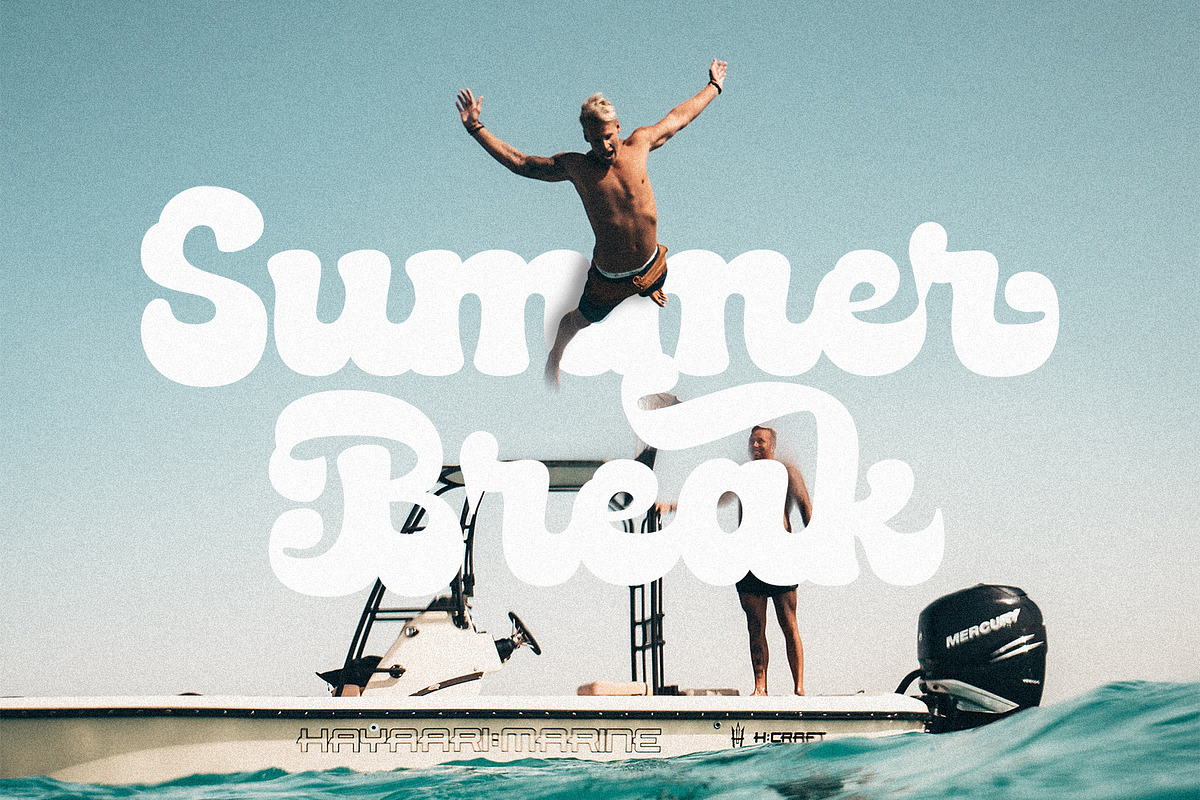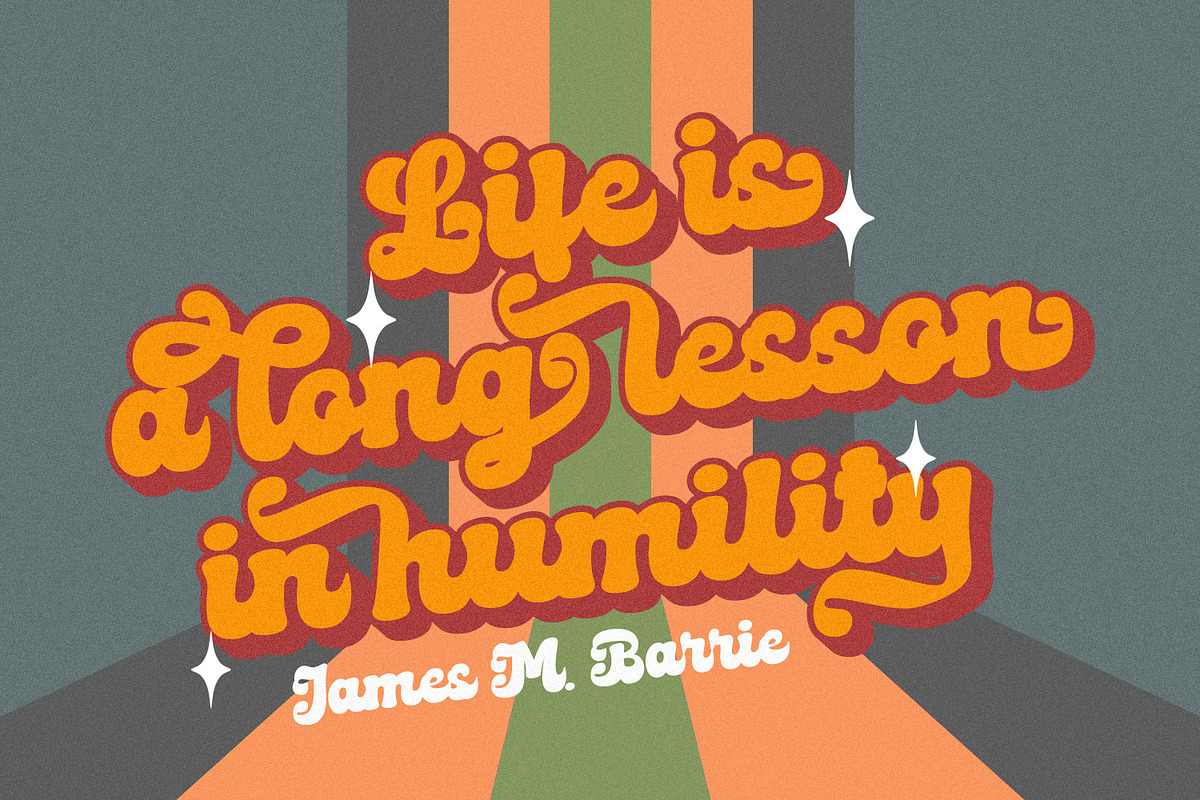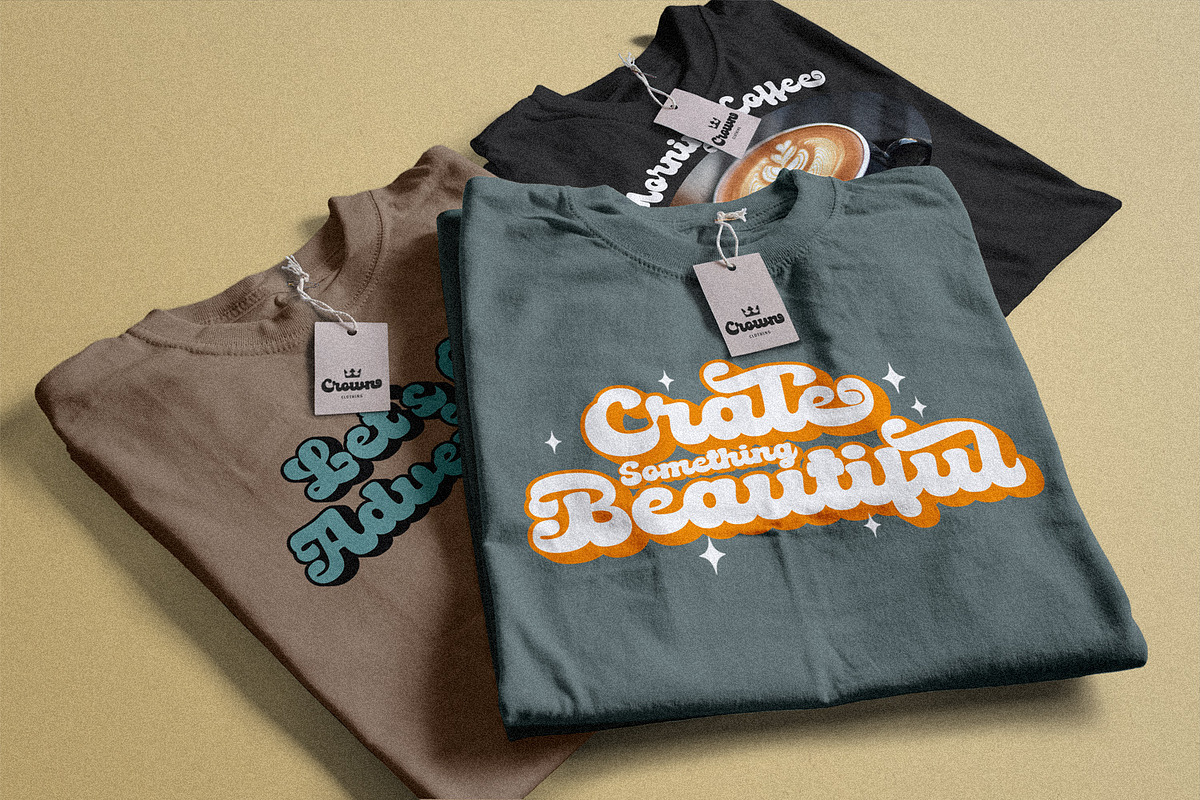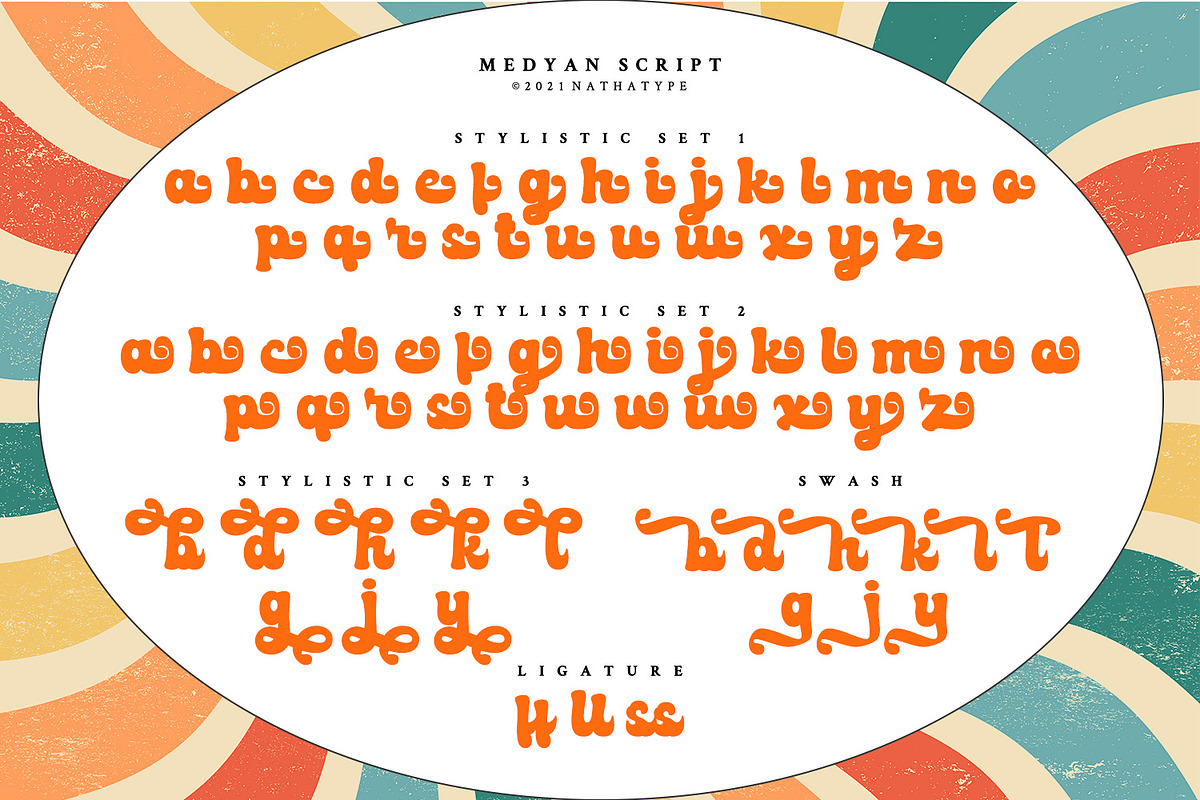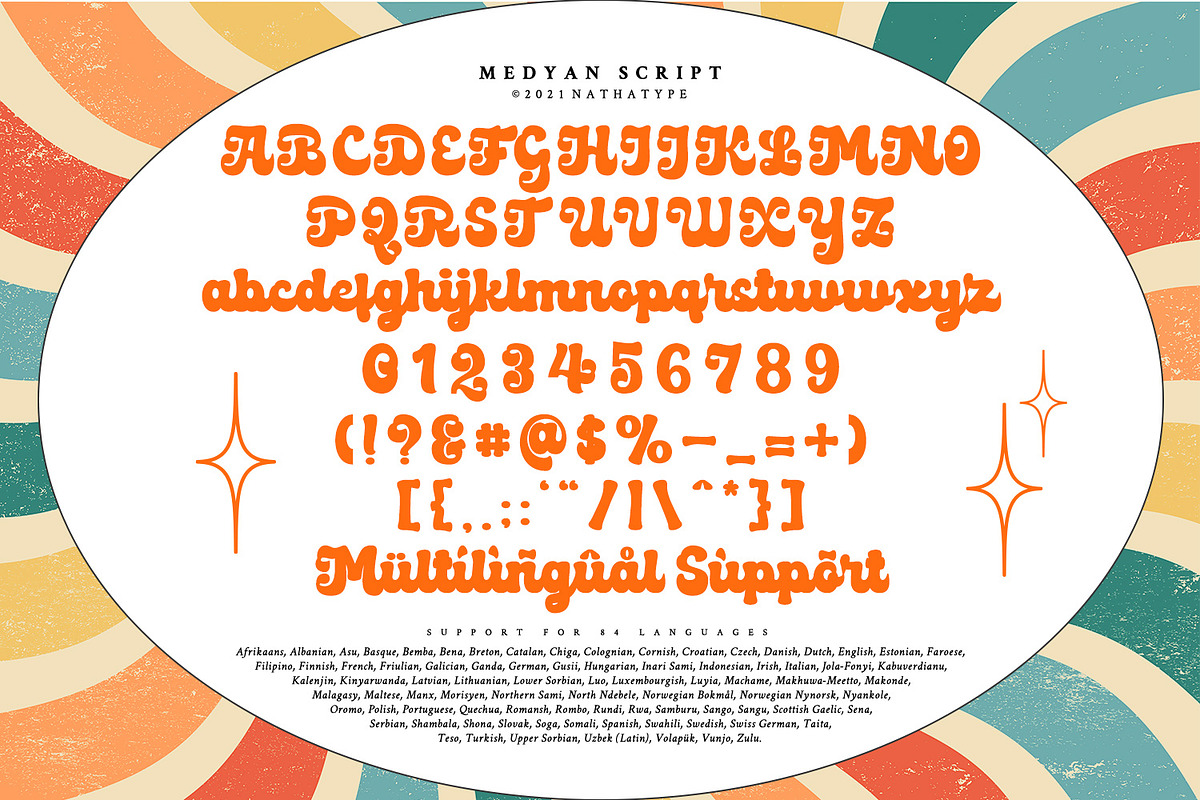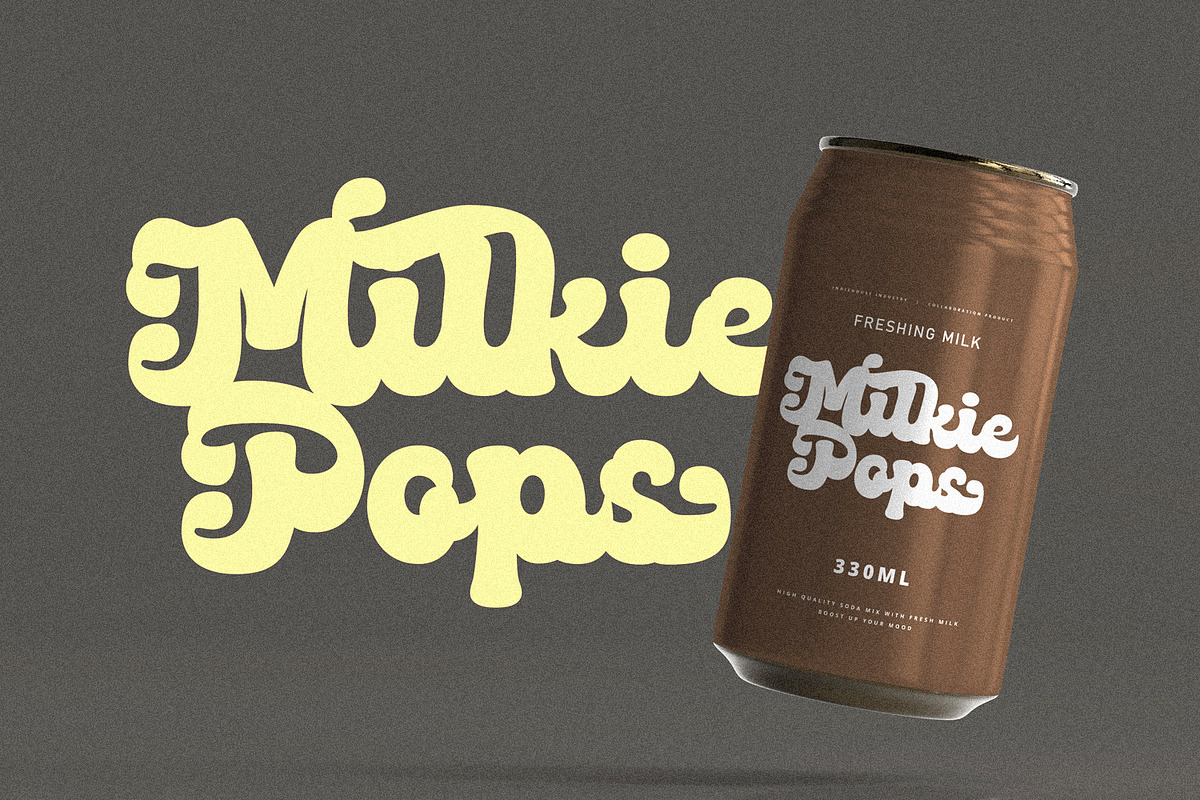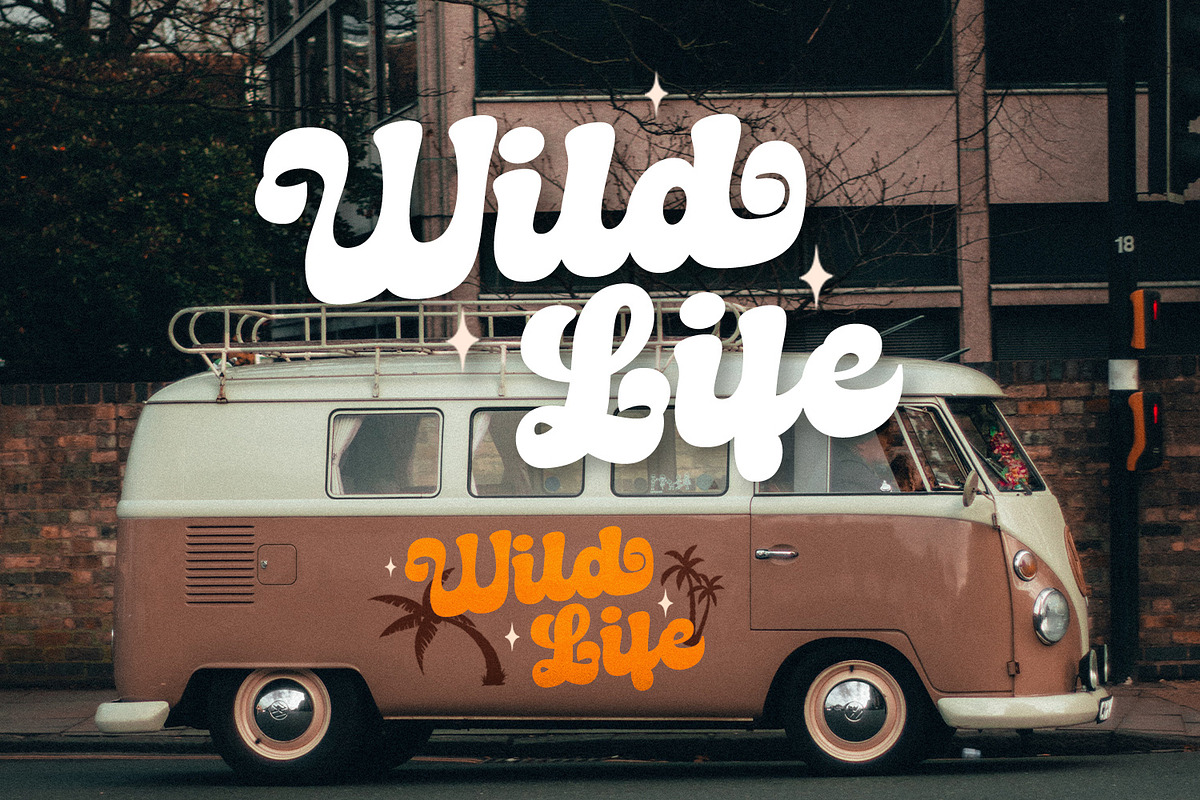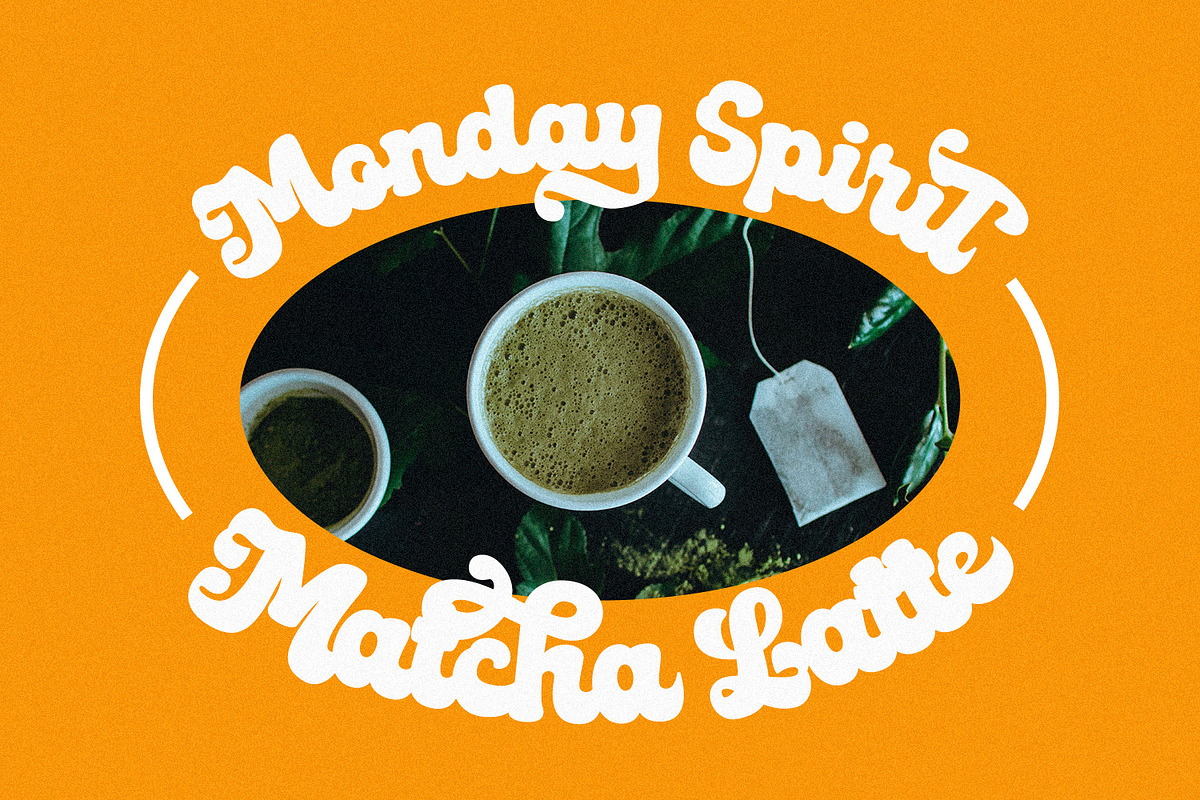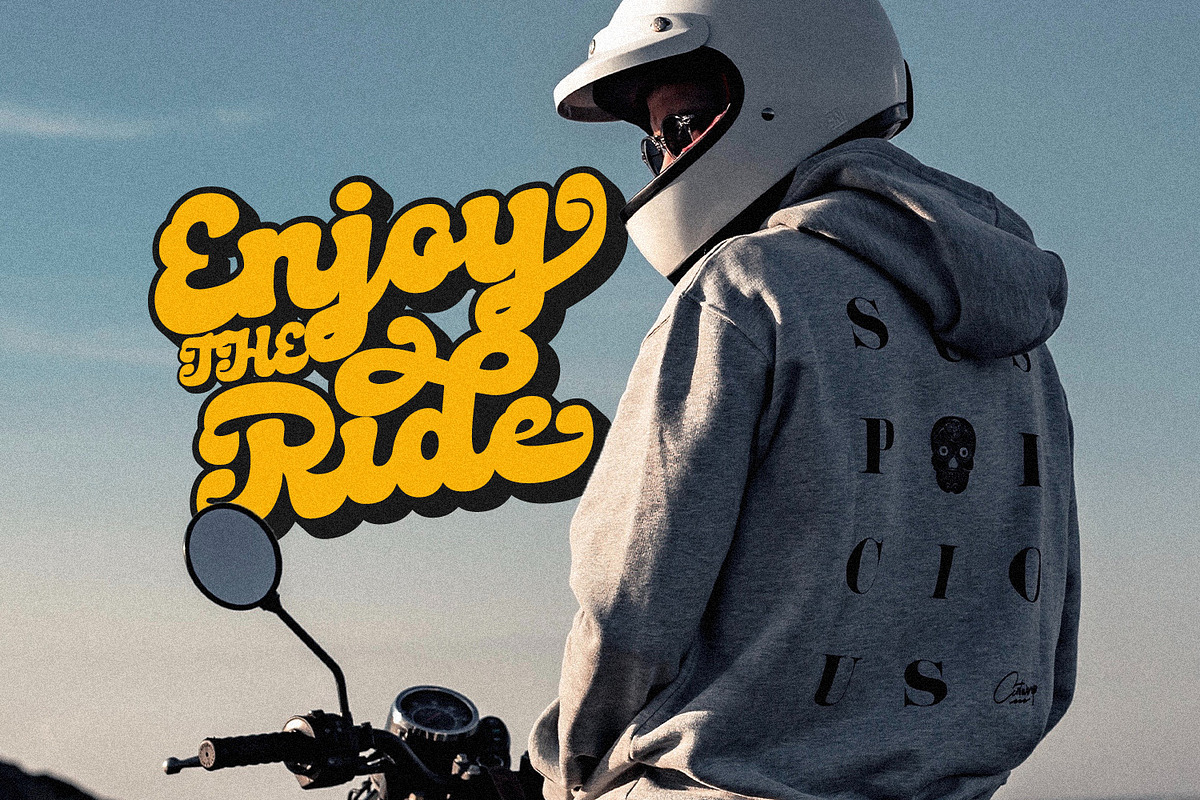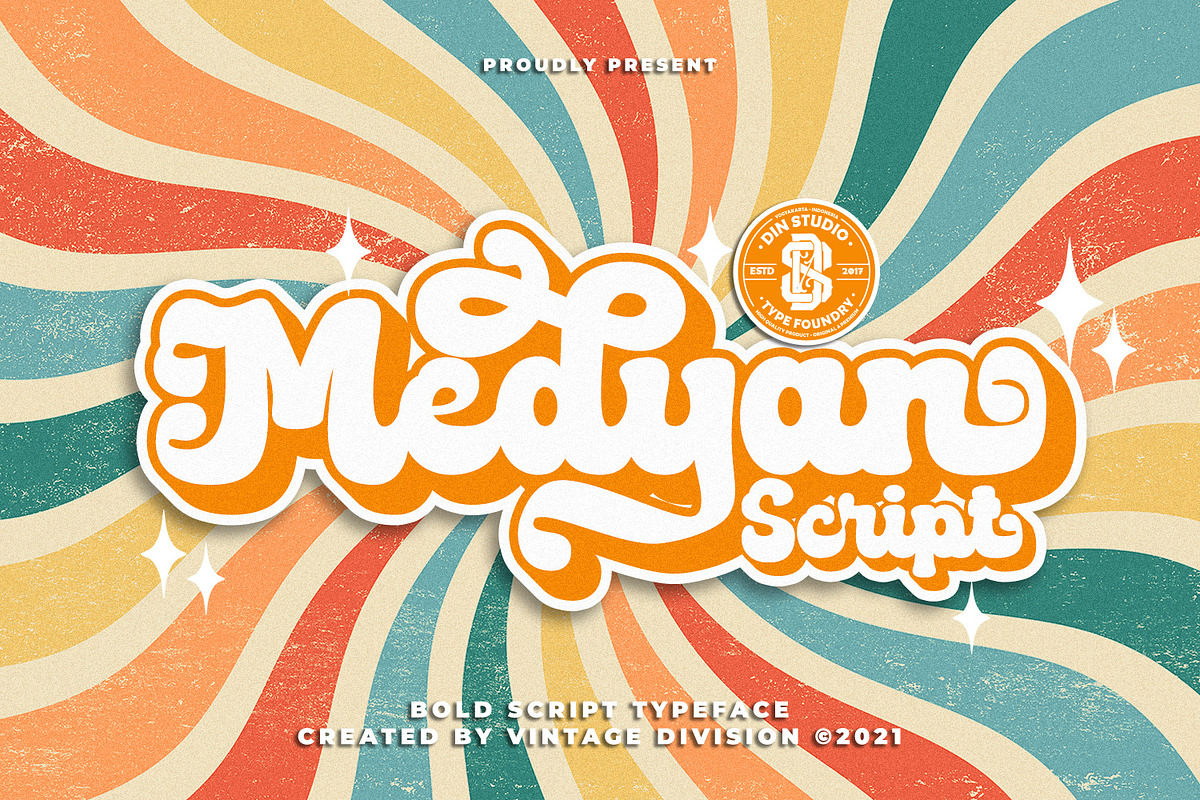
Medyan Script
Ready to make your branding spark? If you need to create a big, bold logo for your business, work on a poster for an event, or whatever your project may be-then this is the perfect font for you.
Medyan Script-A Script Font
Medyan Script is a captive font designed with strong outlines and fat strokes to bring your branding to life and add a touch of modernity, fun, and style. This font features thick and angular letters that are easy on the eyes and nice to look while it’s also easy to read. Medyan Script becomes more special with extruding version option. Perfect to create amazing headings, logos, menus, social media graphics, and many more.
Our font always includes Multilingual Support to make your branding reach a global audience.
- Stylistic Sets